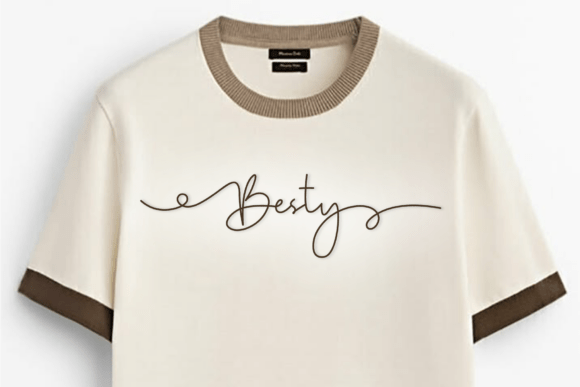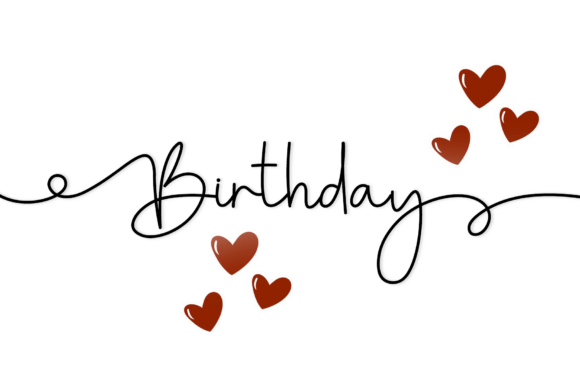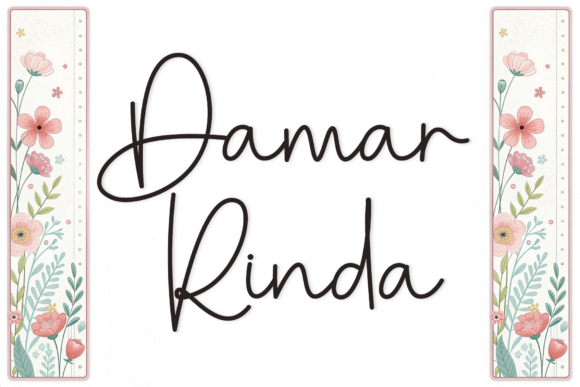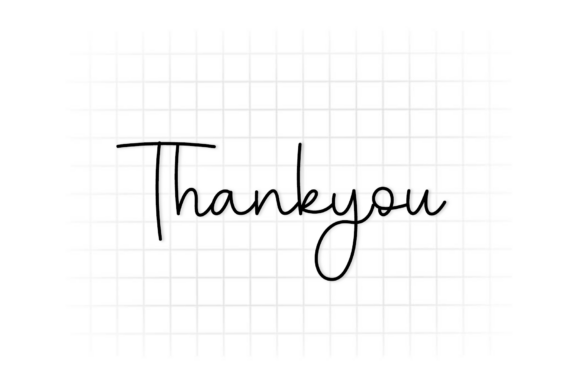
The Beauty of Typography: Introducing the Beauty Font
When it comes to creating a lasting impression, typography plays a vital role in the world of design. A well-crafted font can elevate a brand’s identity, convey its message, and evoke emotions. For designers and crafters seeking a sophisticated and elegant script font, look no further than the Beauty Font. This stunning typeface combines the best of calligraphic style with a warm, organic aesthetic, making it perfect for artisanal food branding, boutique product packaging, upscale lifestyle marketing, and creative editorial titles.
The Unique Characteristics of Beauty Font
The Beauty Font stands out from other script fonts due to its distinctive sweeping, looping ascenders. These elegant flourishes create a sense of customized, artisanal artistry, giving your designs a personal touch. The font’s calligraphic style is balanced by a warm, organic feel, making it versatile and suitable for a wide range of applications. Whether you’re designing a label for a boutique product, creating a brand identity for an artisanal food company, or crafting a title for a creative editorial piece, the Beauty Font is sure to impress.
Perfect for Artisanal Food Branding
Artisanal food branding requires a font that conveys a sense of quality, craftsmanship, and uniqueness. The Beauty Font fits the bill perfectly. Its elegant script and looping ascenders evoke a sense of handcrafted, small-batch products, making it ideal for labeling specialty foods, baked goods, and artisanal beverages. By using the Beauty Font, you can create a brand identity that resonates with customers seeking authentic, high-quality products.
Boutique Product Packaging Made Easy
Boutique product packaging demands attention to detail and a touch of sophistication. The Beauty Font is designed to elevate your packaging design, adding a level of elegance and refinement. Whether you’re packaging luxury candles, handmade jewelry, or artisanal skincare products, this font is sure to make your products stand out on store shelves. Its versatility allows you to experiment with different styles, from simple and understated to elaborate and ornate.
Upscale Lifestyle Marketing and Editorial Titles
The Beauty Font is not just limited to product packaging and branding; it’s also perfect for upscale lifestyle marketing and editorial titles. Use it to create eye-catching headlines, titles, and captions for luxury lifestyle publications, blogs, and websites. Its sophisticated script and elegant flourishes will add a touch of refinement to your designs, making them perfect for targeting high-end audiences.
Why Choose the Beauty Font?
With so many fonts available, why choose the Beauty Font? Here are just a few reasons:
- Unique and distinctive: The Beauty Font’s sweeping, looping ascenders set it apart from other script fonts.
- Versatile: Suitable for a wide range of applications, from artisanal food branding to upscale lifestyle marketing.
- Elegant and sophisticated: Adds a touch of refinement and luxury to your designs.
Tips for Using the Beauty Font
To get the most out of the Beauty Font, here are a few tips:
- Experiment with different sizes: The Beauty Font looks stunning in large sizes, but it’s also effective in smaller sizes.
- Pair with contrasting fonts: Combine the Beauty Font with a contrasting font to create visual interest and hierarchy.
- Use it sparingly: While the Beauty Font is elegant and sophisticated, using it sparingly can create a more dramatic effect.
In conclusion, the Beauty Font is a stunning script font that offers a unique blend of calligraphic style and warm, organic aesthetic. Its sweeping, looping ascenders create a sense of customized, artisanal artistry, making it perfect for designers and crafters seeking to elevate their designs. Whether you’re working on artisanal food branding, boutique product packaging, upscale lifestyle marketing, or creative editorial titles, the Beauty Font is sure to impress.